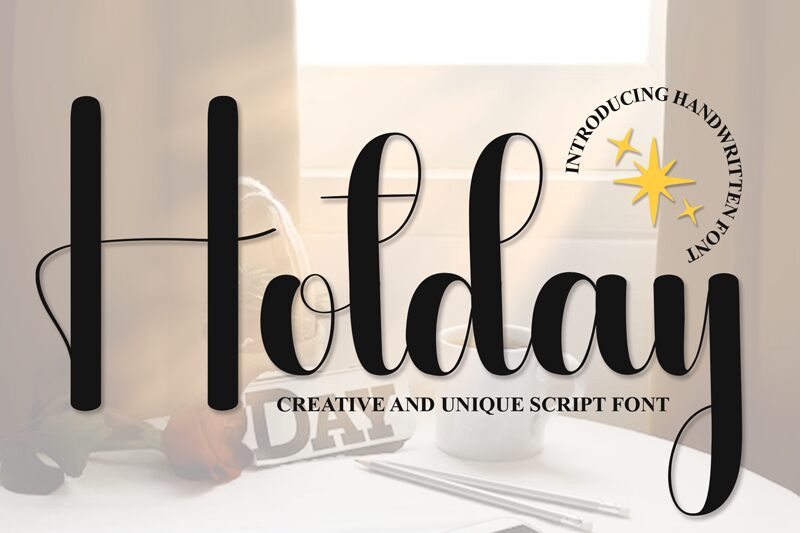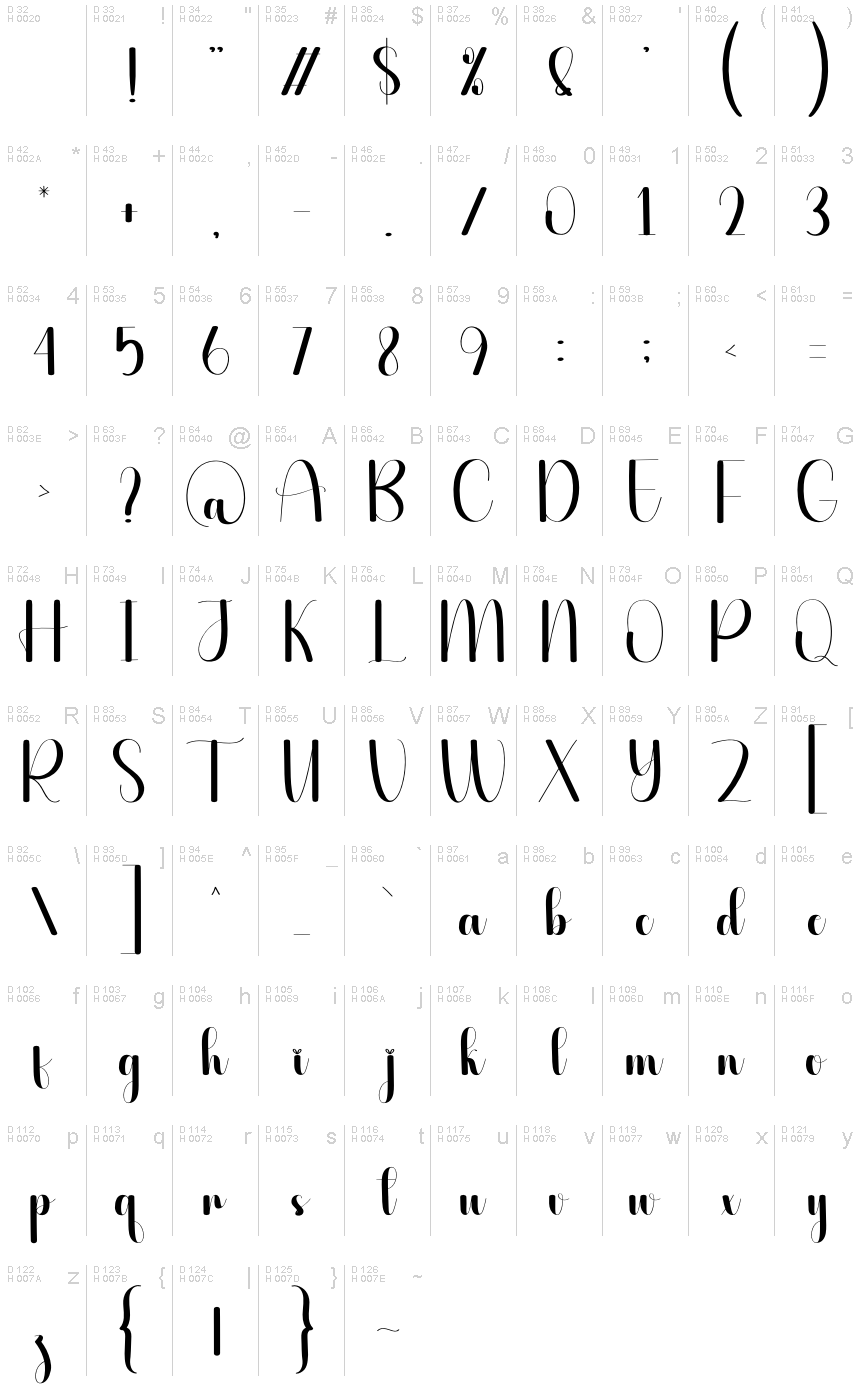
Hotday font, crafted by Scratchones, captures the essence of playful elegance with its handwritten style. This font exudes a warm and inviting character, featuring gracefully flowing strokes that evoke a sense of personal touch and authenticity. The distinctively light font enhances its airy feel, making it perfect for projects that require an approachable yet stylish aesthetic.
The fluidity of Hotday draws the eye, making it an ideal choice for branding materials, social media graphics, or any design aimed at conveying warmth and friendliness. Its ability to adapt seamlessly to both casual and formal contexts adds to its versatility. Whether used in invitations or promotional content, Hotday injects a sense of charm that resonates with audiences and elevates the overall design narrative.
Prezentace a vizuální ukázka písma Hotday